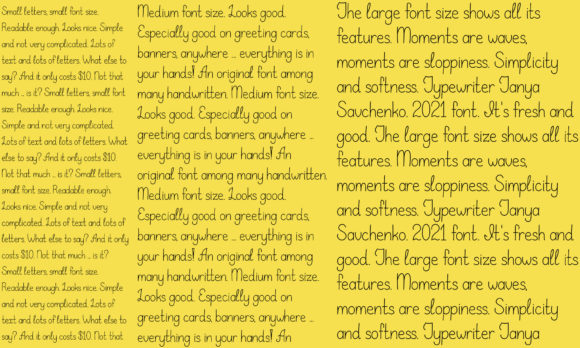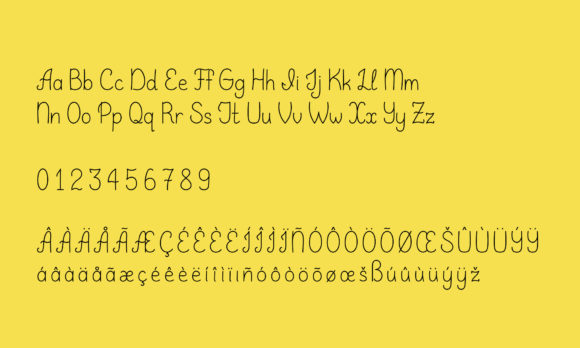
Qundart - Simple Handwritten Font
db-ku.com - Script & Handwritten -- Qundart is a simple handwritten font. You can use this beautiful font in postcards, greetings, or promotional banners. The font is cute and lightweight.